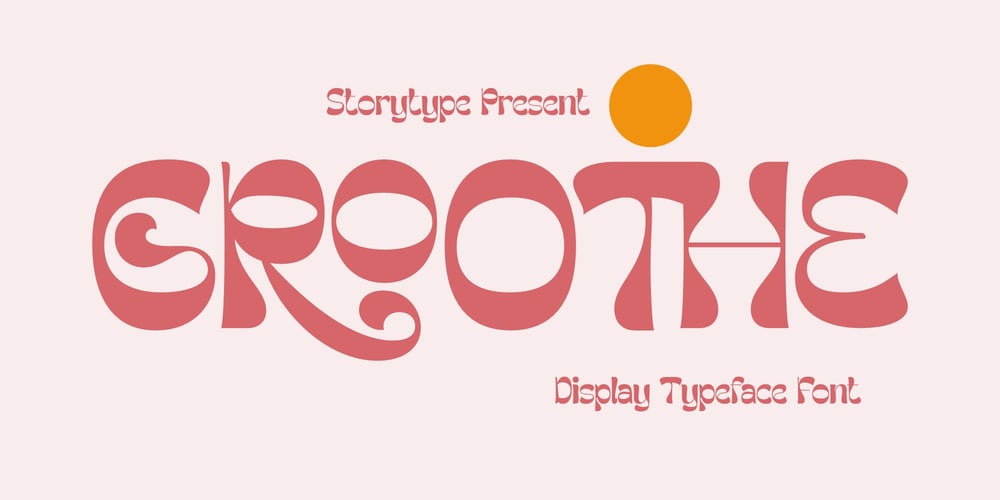
Groothe Font Family was designed by Heru Utama Putra and published by Letterena Studios. Groothe contains 2 styles and family package options. Groothe is a groovy and fun display font. This typeface will enhance your craft with little effort, making your product stand out from the competition.